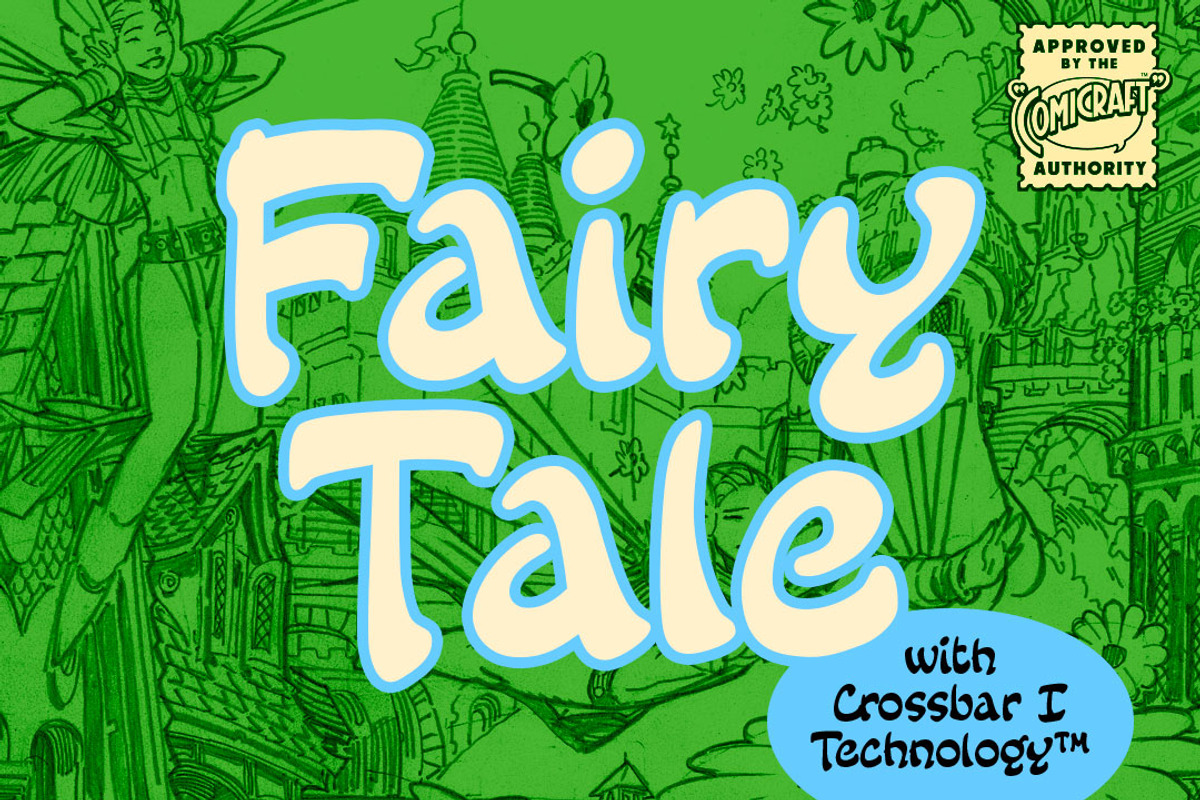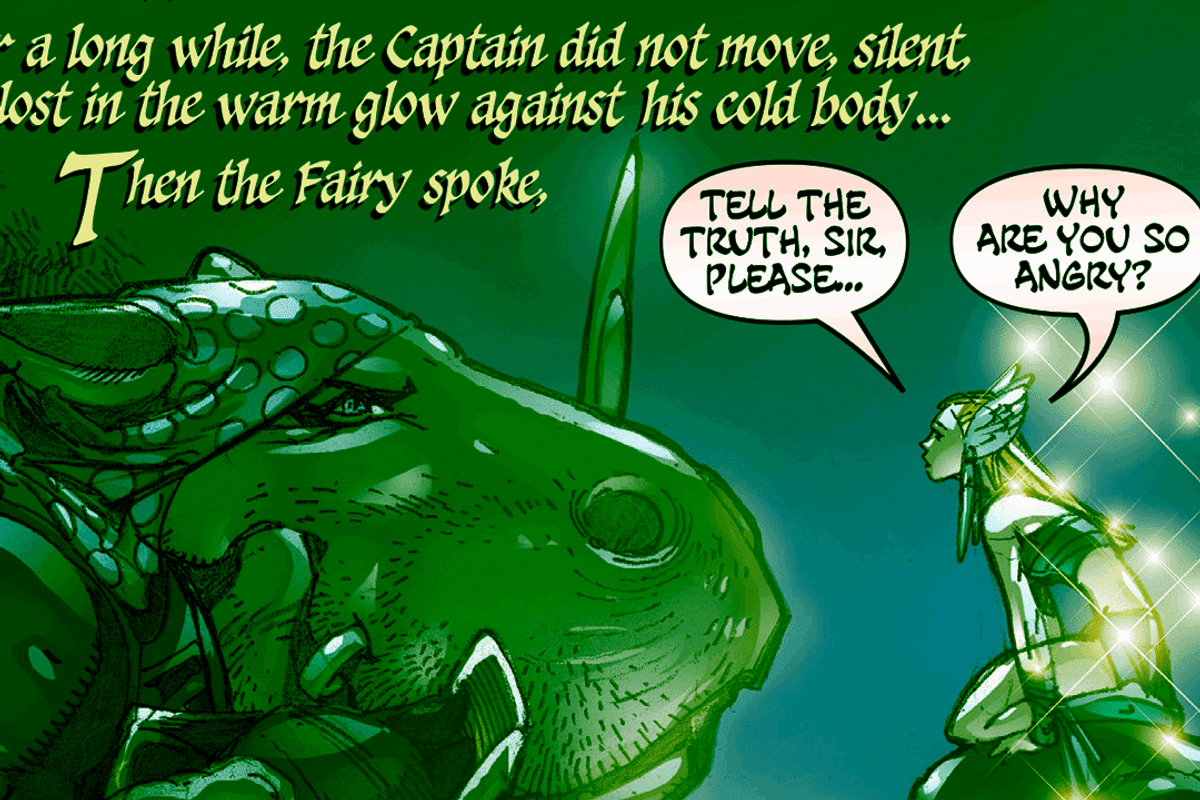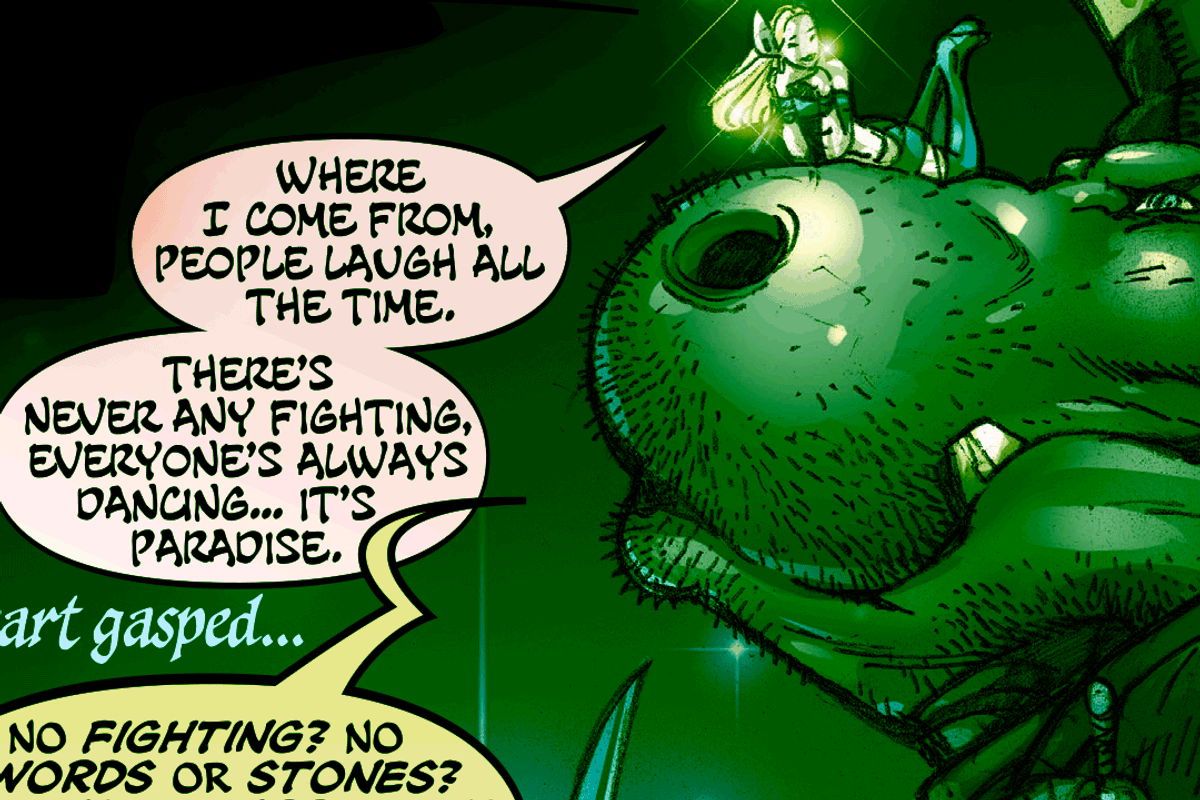
Fairy Tale - fantasy voice font
In its beauty, Comicraft's Fairytale font is without rival in the heavens, the earth, or the stuff of men's dreams! A wee thing it may be, but 'tis like a star pulled from the sky. Luminescent. Radiant. Perfect. Yes! PARADISE can be yours...from the pages of "Captain Stoneheart and the Truth Fairy," comes a font that might very well change your life forever... it's a dream, a myth, a neverending story, it's a FairyTale!